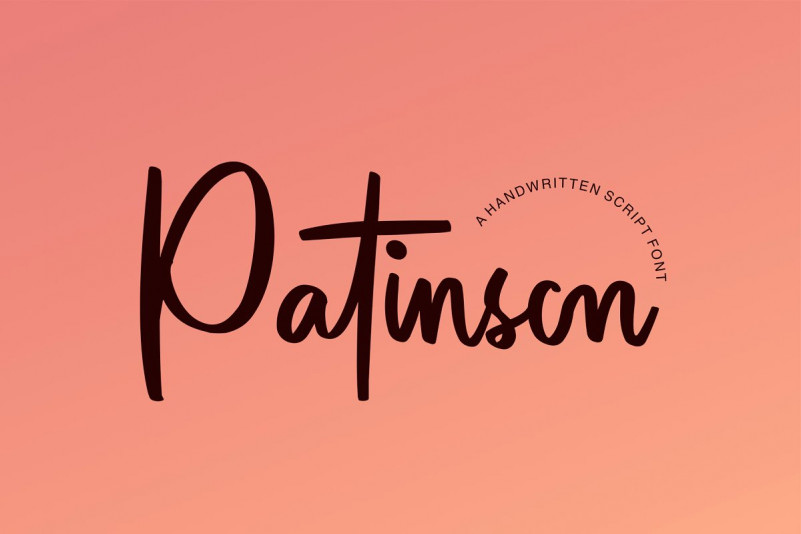
Patinson Font
Patinson Font is perfect for distinguished brand identities, prestigious law firm communications, executive corporate presentations, luxury heritage branding, classical institutional materials, traditional gentleman's club signage, established financial services marketing, and refined professional documentation.
What makes Patinson Font exciting is its aristocratic embodiment of distinguished authority that captures the timeless elegance and institutional gravitas of established tradition through masterfully crafted letterforms that command immediate respect and convey lasting prestige. The font features refined proportions with classical details that evoke the dignity and sophistication found in venerable institutions and distinguished professional practices. Its authoritative character and prestigious appearance make it perfect for organizations that need to communicate heritage, respectability, and the kind of institutional credibility that inspires confidence in generations of professional excellence and unwavering standards.
Patinson Font family includes various distinguished weights such as Light, Regular, Medium, and Bold variations, often featuring classical stylistic alternates and aristocratic decorative elements. The family may include traditional symbols, heritage ornaments, and prestigious ligatures that enhance the font's distinguished aesthetic, providing designers with comprehensive options for creating authoritative typographic compositions that honor established traditions while maintaining contemporary relevance and professional sophistication.